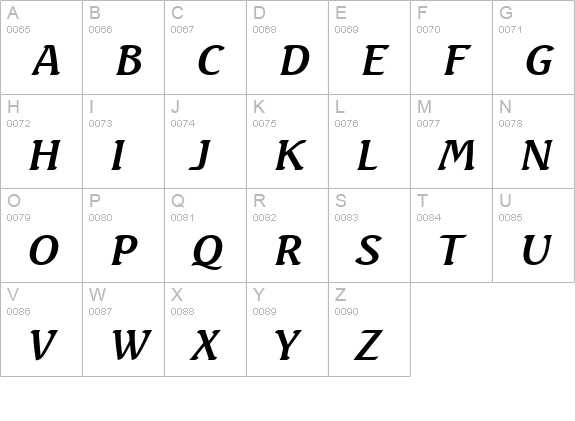
Beach Wide Italic Font Details
Beach Wide Italic is a distinctive, extended-width, italic variant in the Beach typeface family \xE2\x80\x94 well suited to design and typography projects.
Introducing Beach Wide Italic font, a stunning display typeface that exudes a sense of freedom and leisure. With its sleek and modern design, this font is perfect for capturing the carefree and relaxed vibe of a day at the beach. The slanted italic style adds a touch of elegance and sophistication, making it an ideal choice for projects that require a stylish yet approachable look. What's even better is that Beach Wide Italic font is available for free download at FontsMarket.com! Whether you're working on a summer-themed design project, creating beach party invitations, or simply want to add a touch of seaside charm to your work, this font is sure to make a splash. Embrace the spirit of the beach and bring a sense of sunshine and fun to your designs with Beach Wide Italic font. Download it today and let your creativity soar!